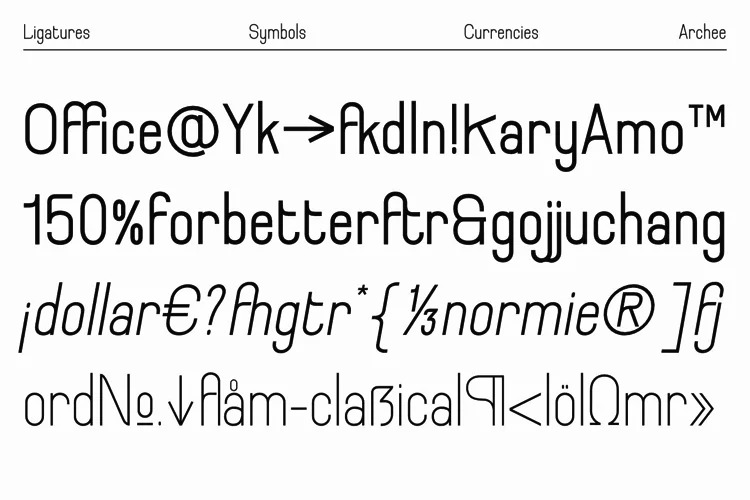
Archee Sans Serif Font
This is an modern font. A elegant non serifs, off curves and unique letters. Inspired by modern architecture. Designed for screen and medium sizes.
It has 3 different weights and this font also featured with ligatures. Archee cover more than 20 languages including russian and greek.